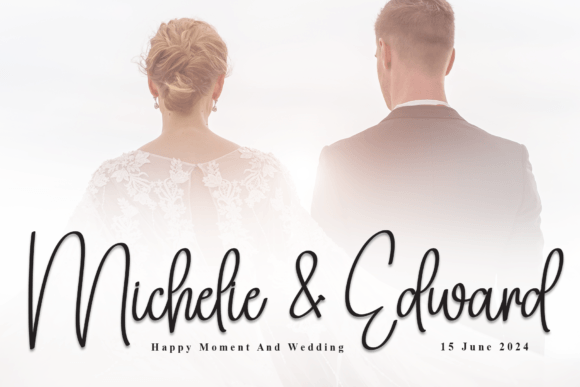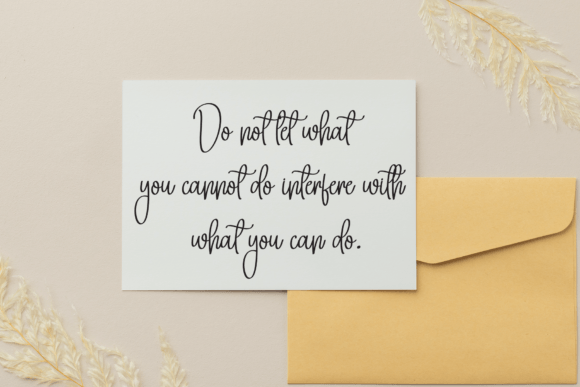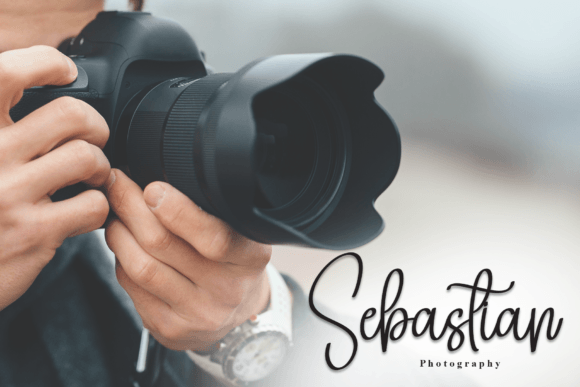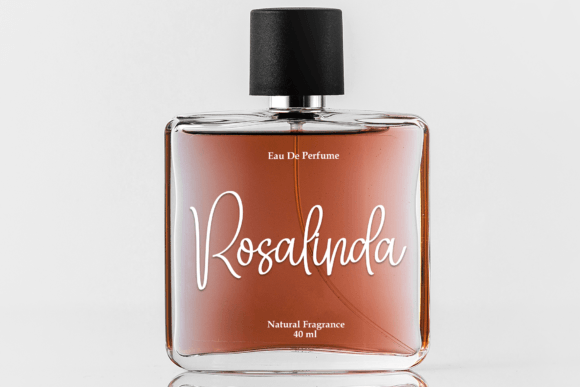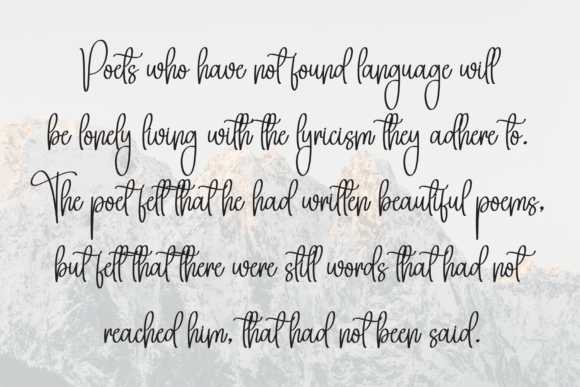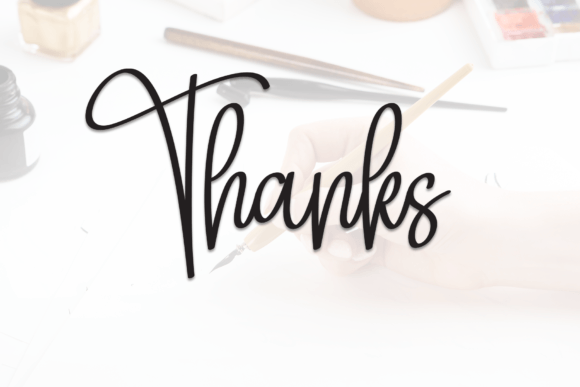
Introducing Autograph Font: A Charmingly Unique Display Font
Are you tired of using the same old fonts for your designs? Look no further! We’re excited to introduce Autograph Font, a handcrafted display font that exudes warmth and whimsy in every stroke. This exquisite font is perfect for adding a touch of personality to your wedding invites, cards, and any design aesthetic that craves a sprinkling of fun.
A Font that Captures a Friendly Aura
Autograph Font is designed to capture a friendly aura that’s hard to resist. Its charmingly unique characters are handcrafted with a delightful sweetness that makes it perfect for designs that require a personal touch. Whether you’re a designer, crafter, or DIY enthusiast, this font is sure to become your new go-to for creating eye-catching and engaging designs.
Perfect for Wedding Invites and Cards
Wedding invites and cards are a great way to showcase the beauty of Autograph Font. Its whimsical charm and playful vibe make it perfect for couples who want to add a touch of personality to their special day. Imagine sending out wedding invites that feature a custom font that’s both elegant and fun. Your guests are sure to be impressed!
Add a Sprinkling of Fun to Your Designs
Autograph Font is not just limited to wedding invites and cards. It’s perfect for any design aesthetic that craves a sprinkling of fun. Whether you’re designing a logo, brochure, or social media graphic, this font is sure to add a touch of whimsy and personality to your design. Its versatility makes it a great addition to any designer’s toolkit.
What Makes Autograph Font Special?
So, what makes Autograph Font so special? Here are just a few features that set it apart:
- Handcrafted with love: Each character is carefully crafted to ensure a unique and personal touch.
- Delightfully sweet: Autograph Font has a charmingly sweet vibe that’s hard to resist.
- Whimsical charm: This font has a playful vibe that’s perfect for designs that require a touch of personality.
- Perfect for designs that require a personal touch: Autograph Font is perfect for designs that require a personal touch, such as wedding invites, cards, and social media graphics.
- Use it for headings: Autograph Font is perfect for headings and titles, where its whimsical charm can really shine.
In conclusion, Autograph Font is a charmingly unique display font that’s perfect for designers, crafters, and DIY enthusiasts. Its handcrafted characters, delightful sweetness, and whimsical charm make it a great addition to any designer’s toolkit. Whether you’re designing wedding invites, cards, or social media graphics, Autograph Font is sure to add a touch of personality and whimsy to your designs. So why wait? Dive into the world of irresistible charm with Autograph Font today!